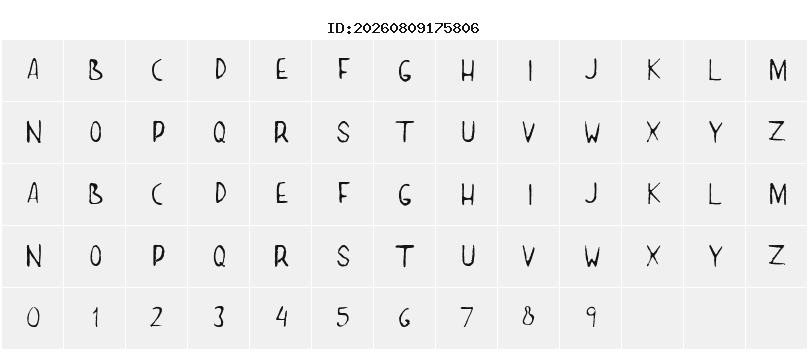
• Font Name: Parana
• Manufacturer: Jairo Fiorotto
About Parana.ttf
Parana.ttf is a modern, elegant sans-serif font designed for ultimate readability and visual harmony. Perfect for branding, headlines, web design, and print materials.